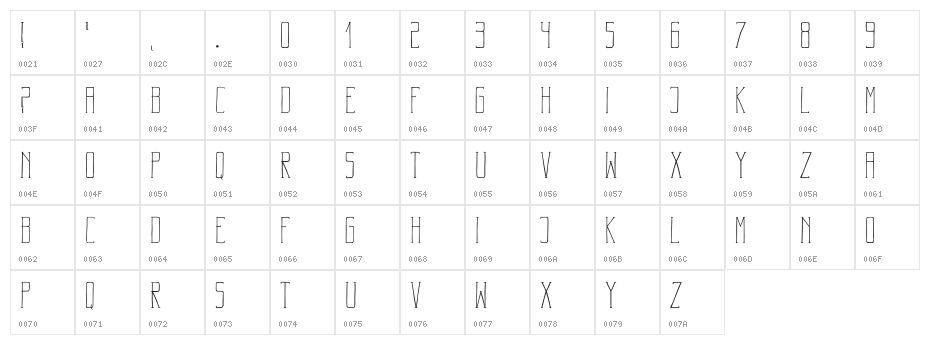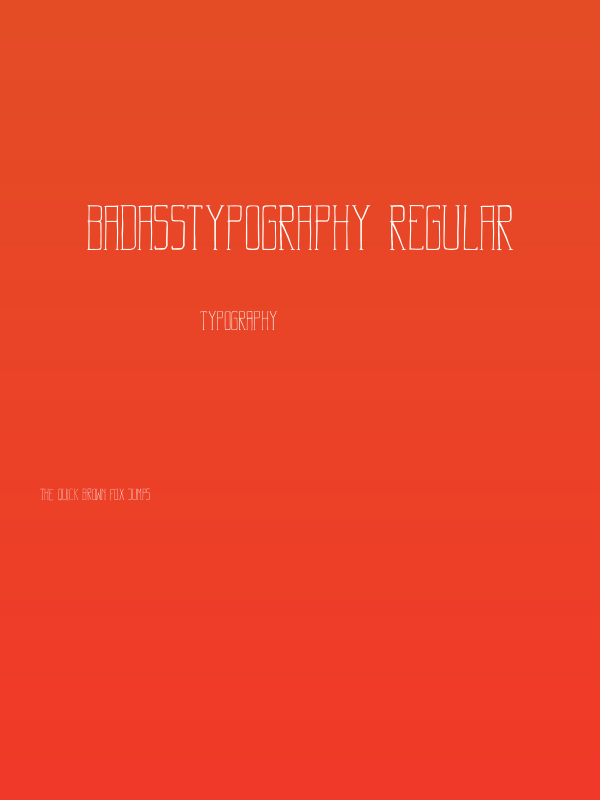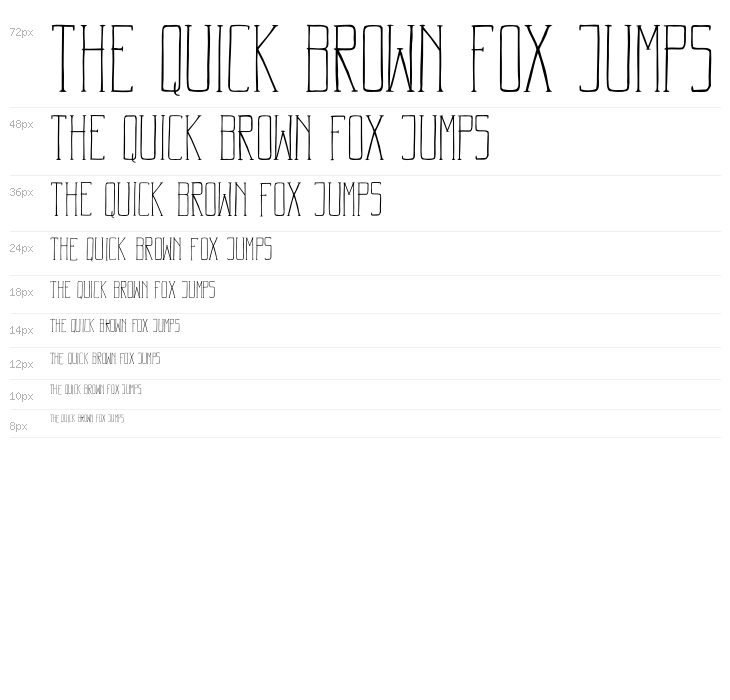
BadassTypography-Regular Font
BadassTypography-Regular Description
This font features a tall, narrow design with a distinct geometric style. The characters are elongated and have a consistent stroke width, giving it a modern and sleek appearance. The uppercase letters are particularly striking with their vertical emphasis, while the lowercase letters maintain the same height, creating a uniform look. The numerals are similarly styled, ensuring consistency across all characters. The special characters are minimalistic, fitting seamlessly with the overall aesthetic. This font's unique structure makes it stand out, ideal for projects that require a bold statement.
| Proposed Projects | Ideal for branding, posters, and modern design projects that require a distinctive and bold typeface. |